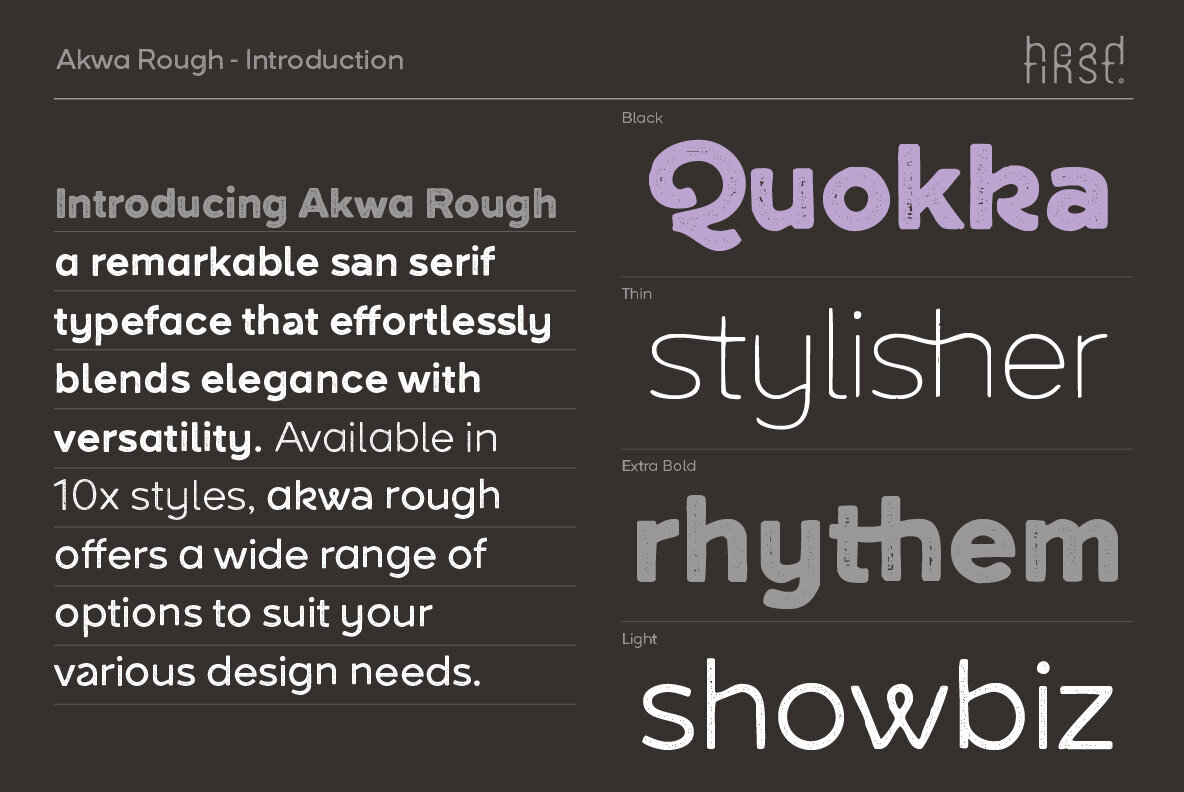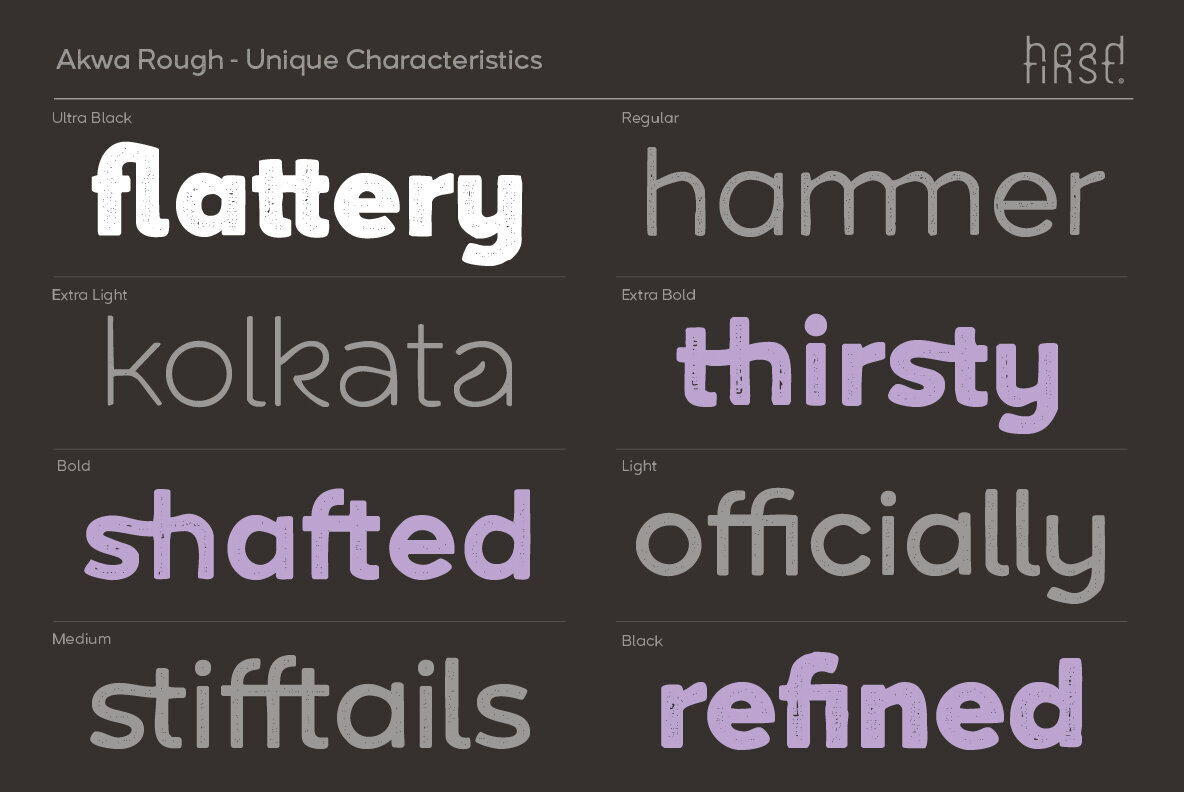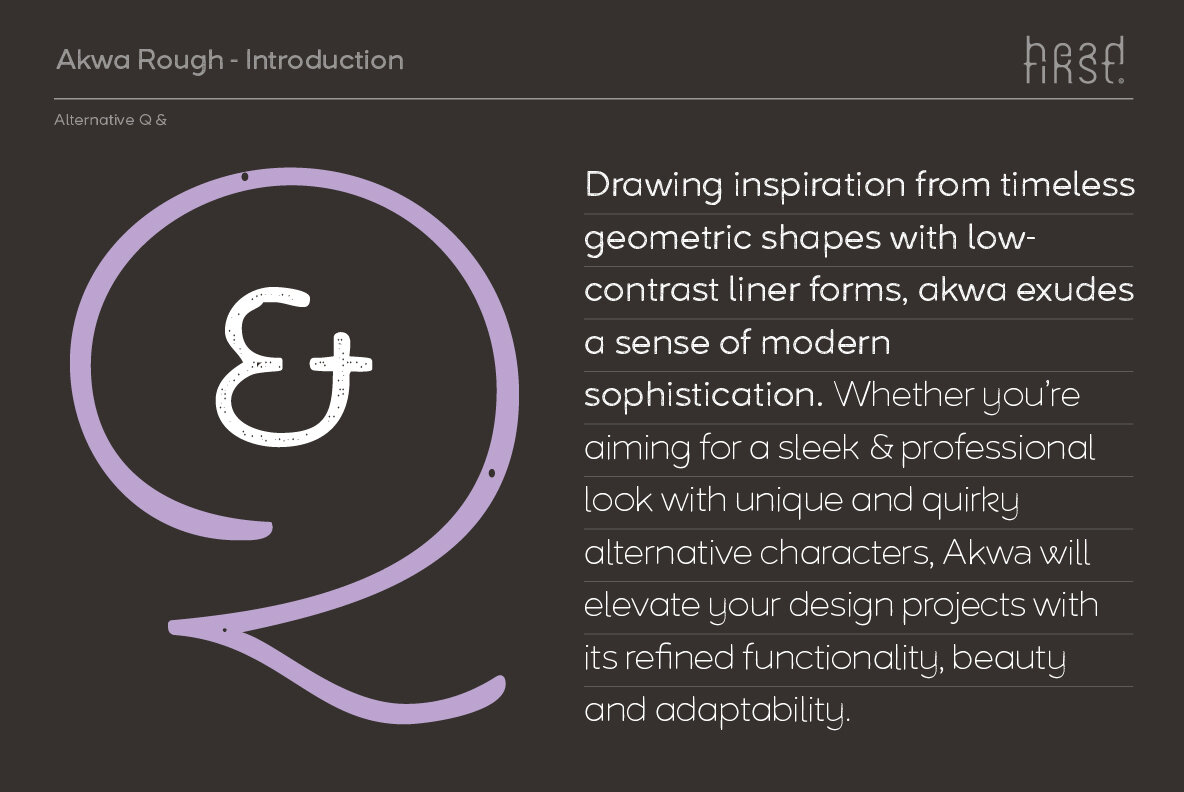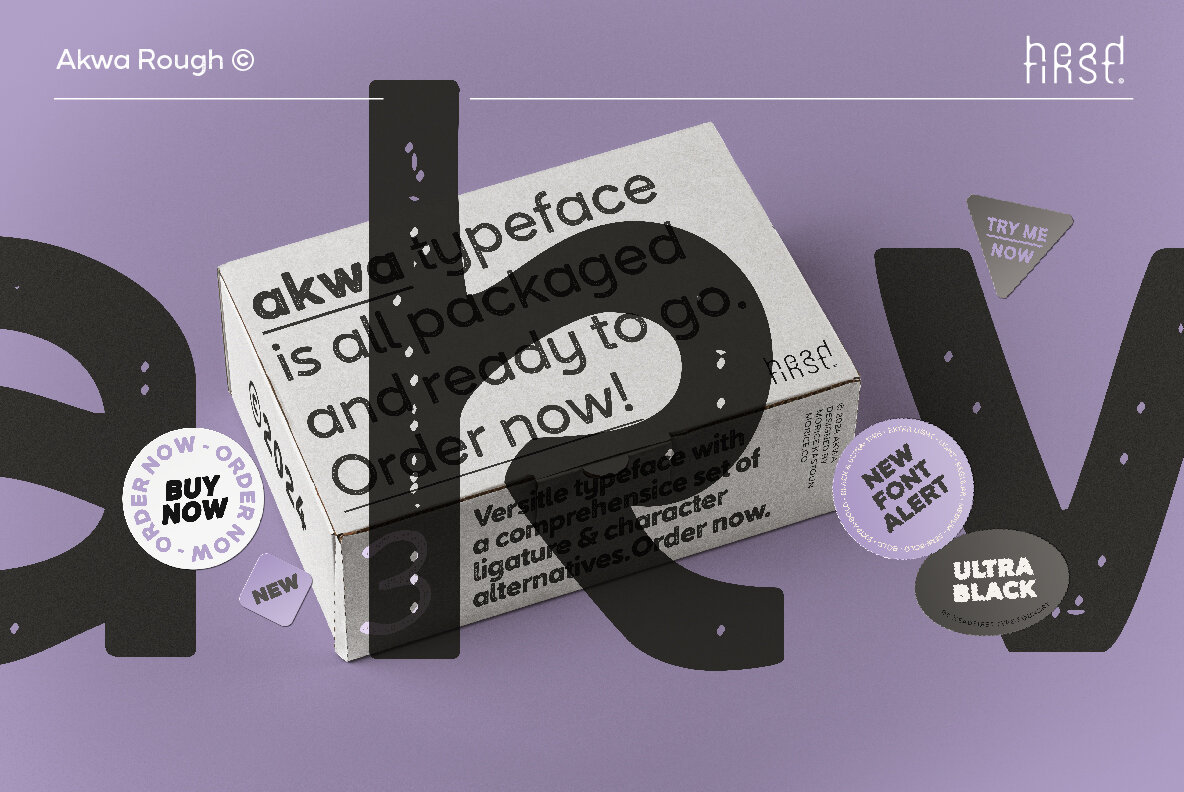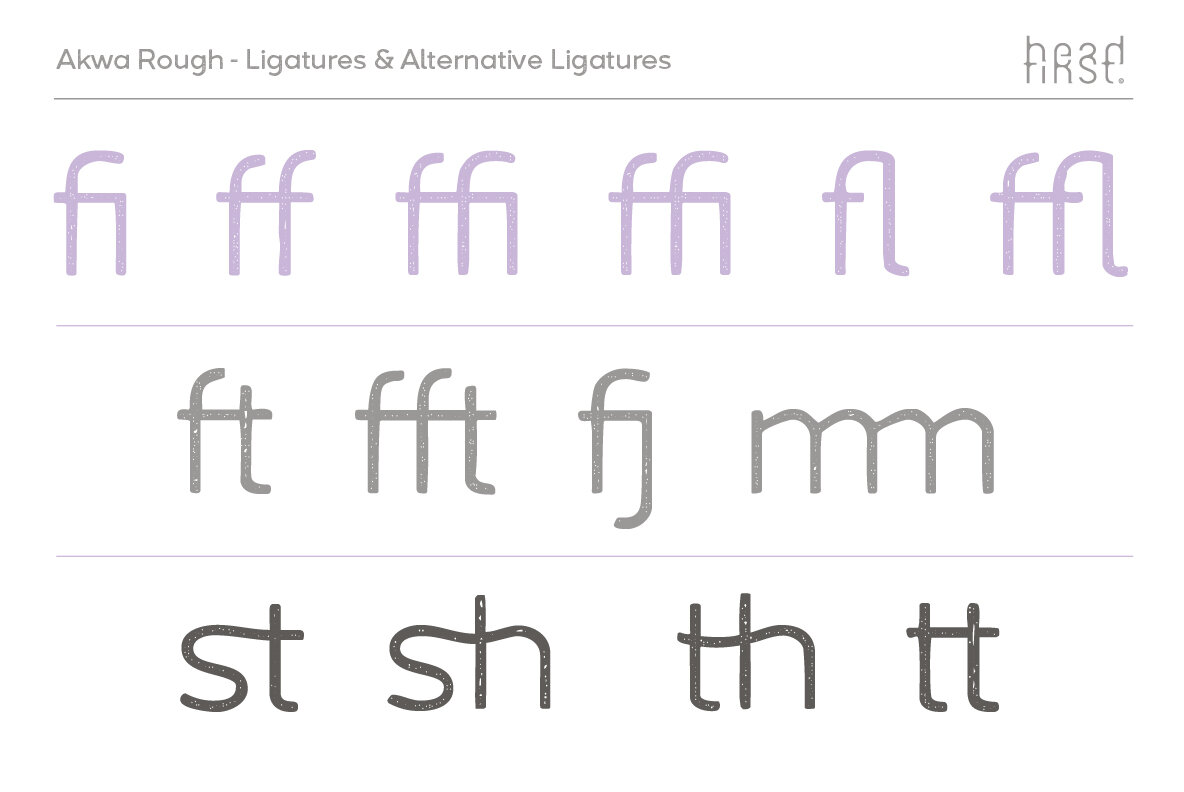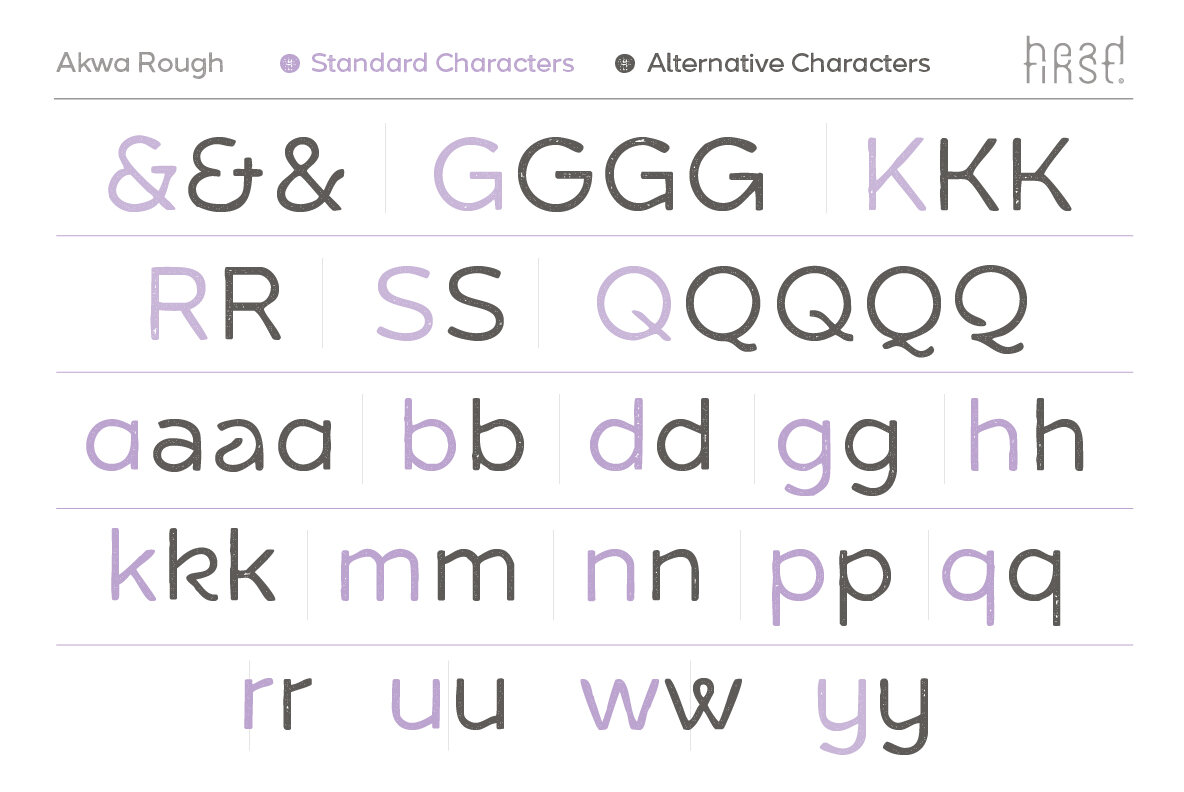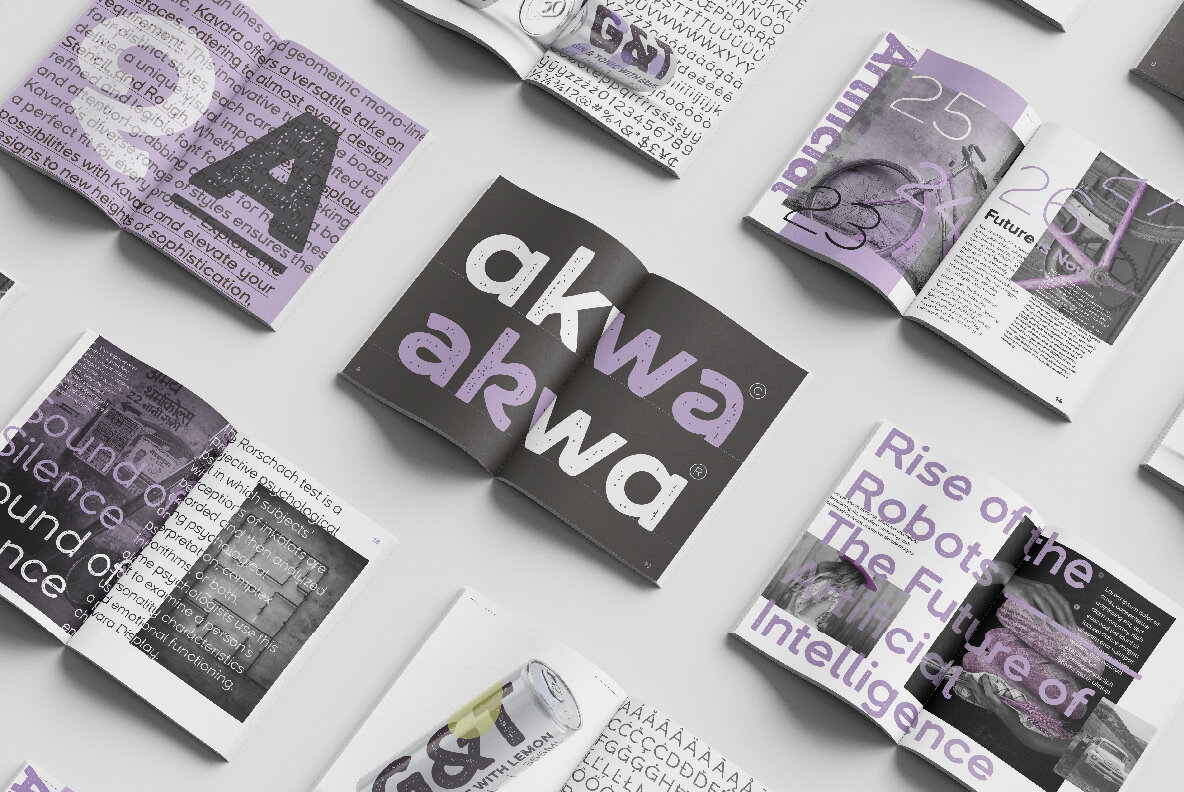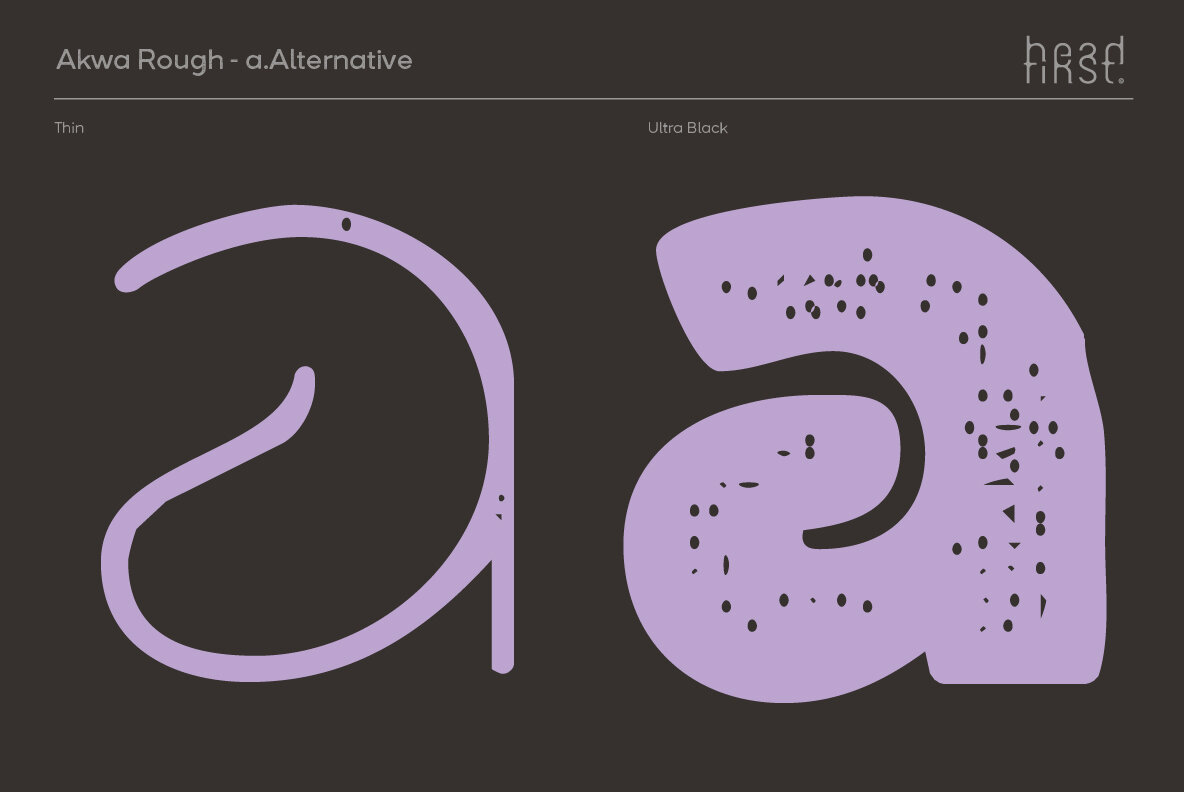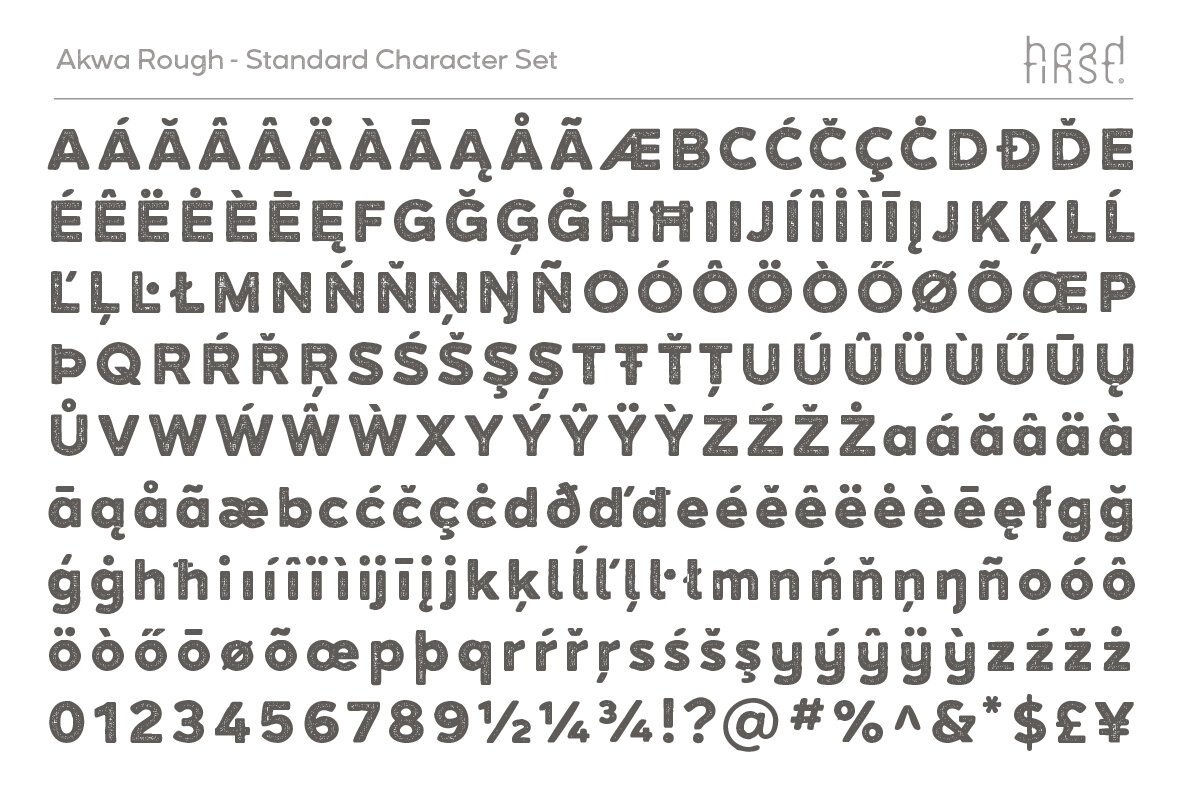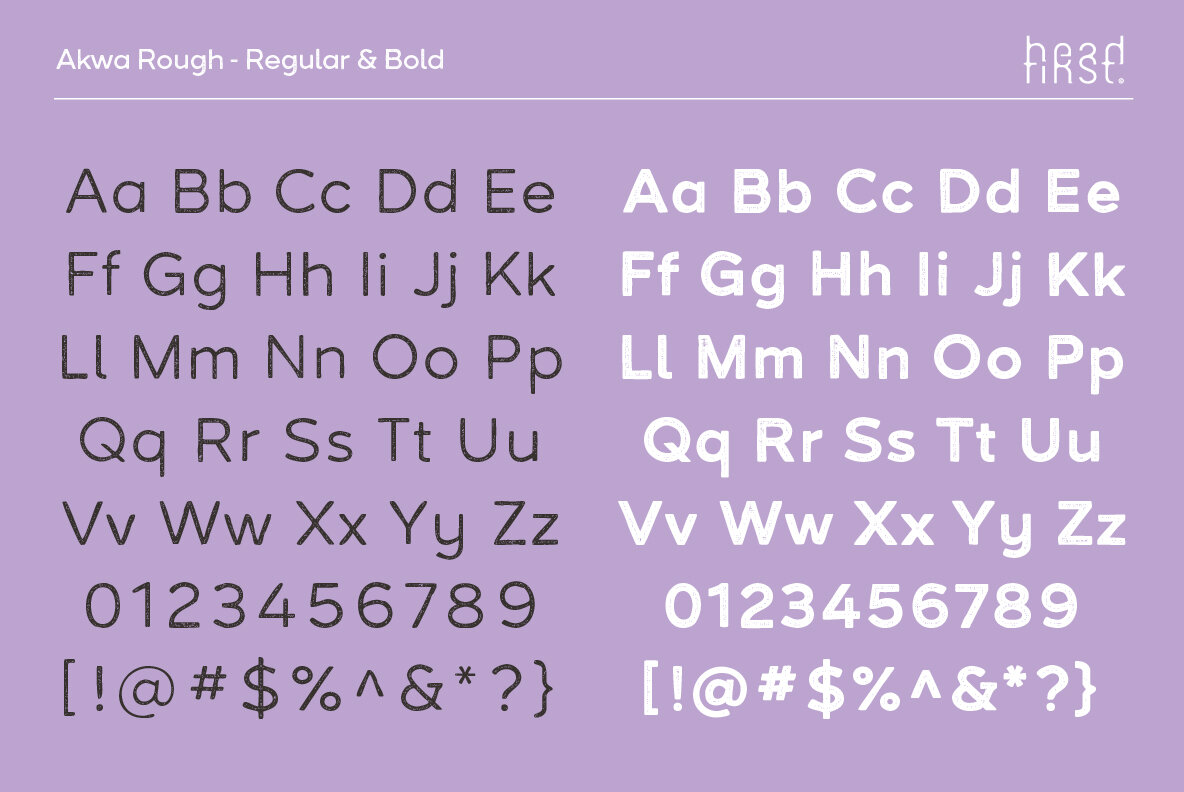
Akwa Rough Font
Introducing Akwa Rough, a remarkable hand-drawn styled san-serif typeface that effortlessly blends elegance, versatility & personality. Drawing inspiration from timeless geometric shapes with low-contrast liner forms, Akwa Rough exudes a sense of modern sophistication. Akwa Rough will elevate your designs with its refined functionality, beauty and adaptability.